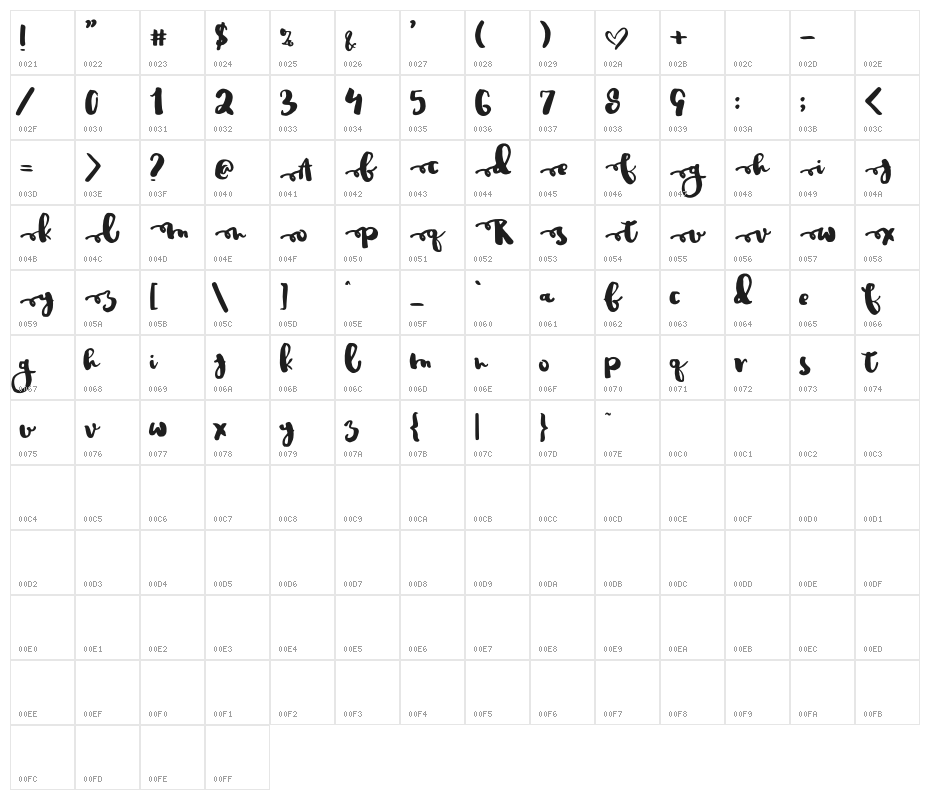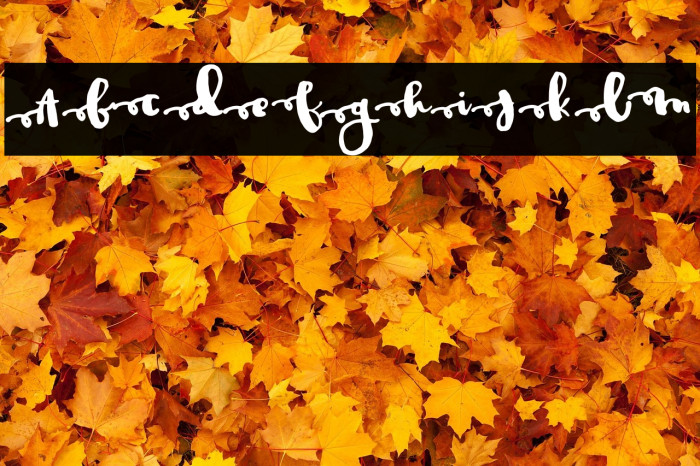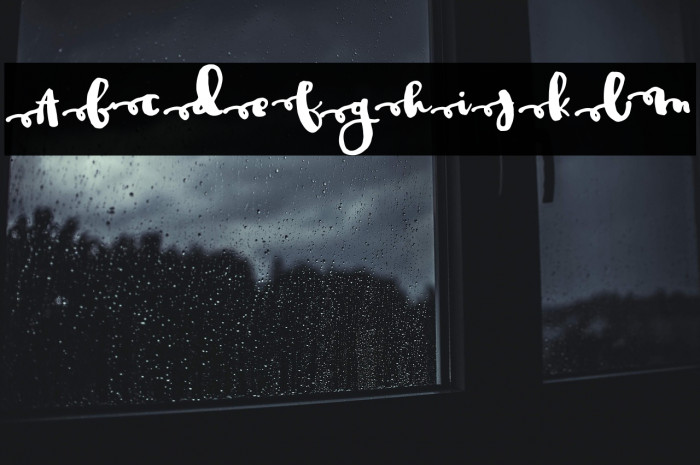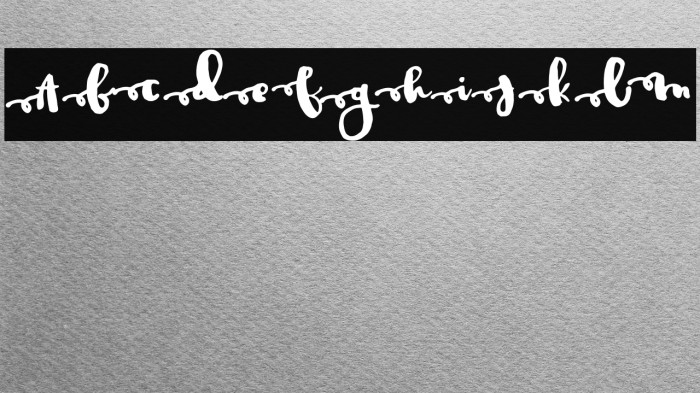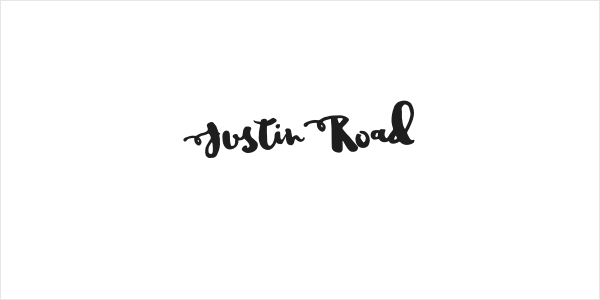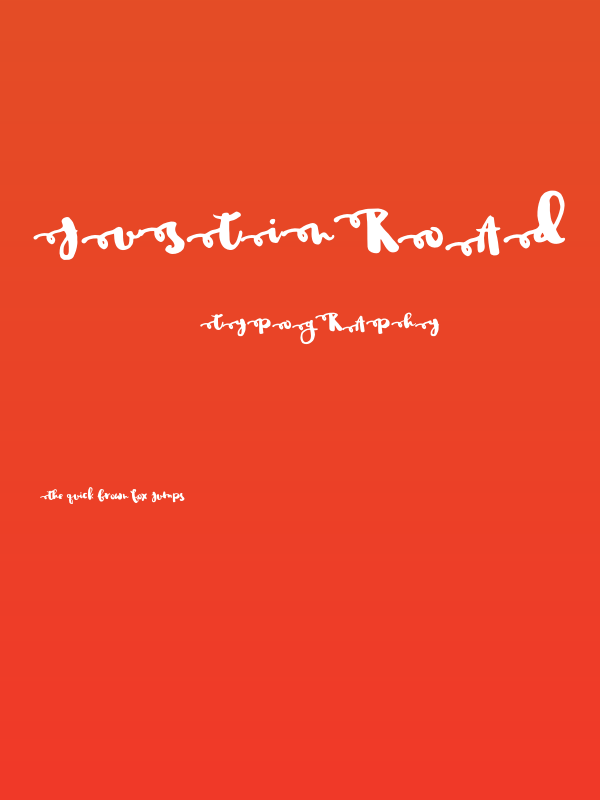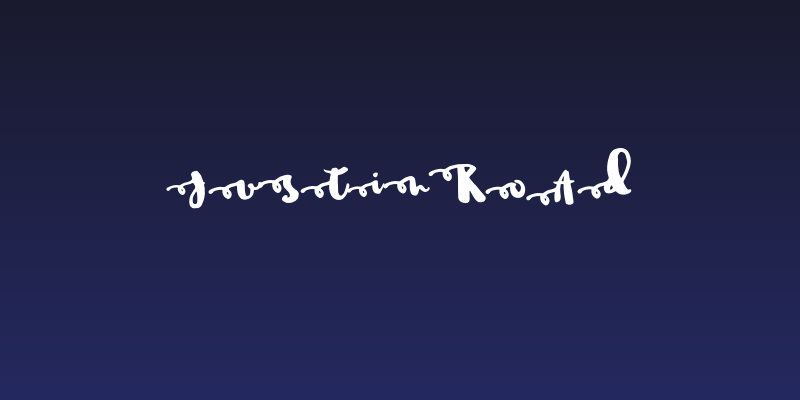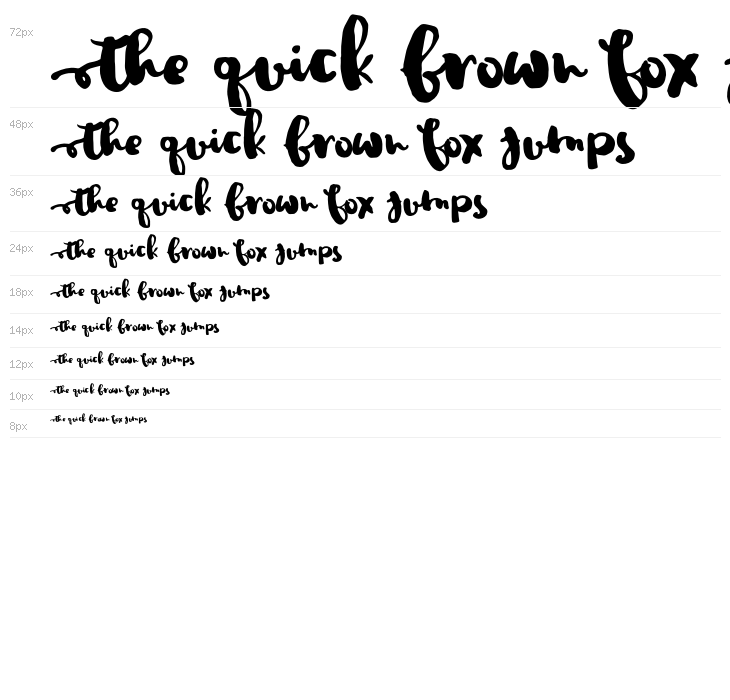
JustinRoad Font
JustinRoad Description
This font features a bold, expressive style with a handwritten aesthetic. The characters are fluid and dynamic, with a playful and artistic flair. The uppercase and lowercase letters exhibit a consistent flow, characterized by thick strokes and rounded edges. The numbers and special characters maintain the same lively and bold appearance, making them stand out. This font's unique style is perfect for adding a personal touch to any design project, offering a sense of creativity and individuality.